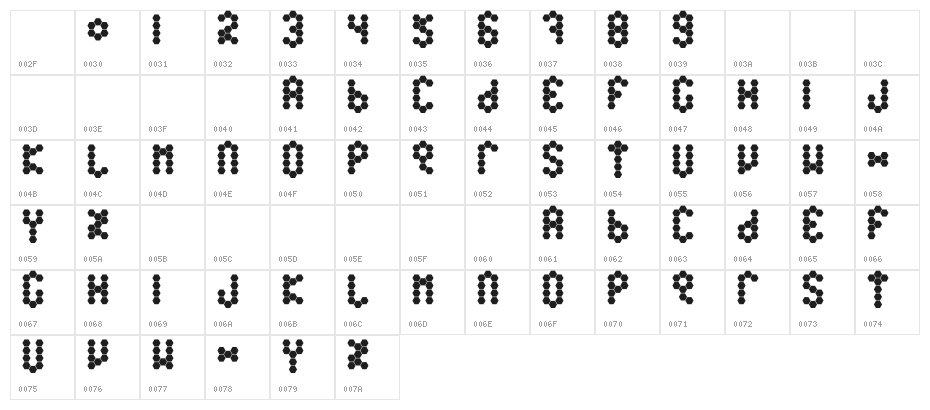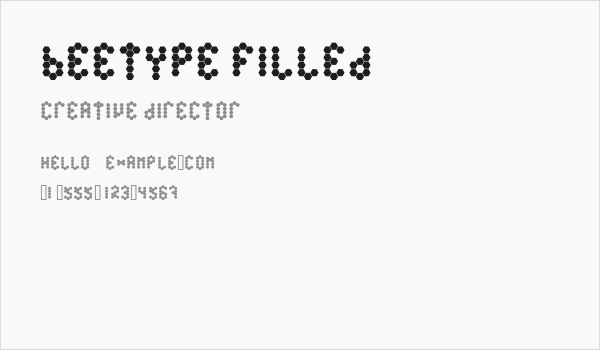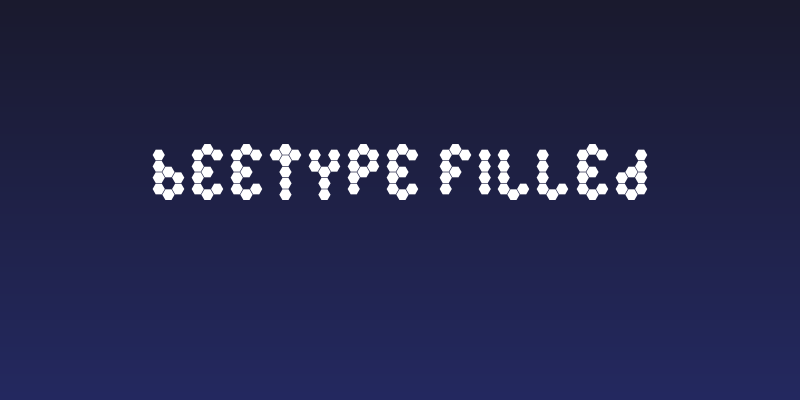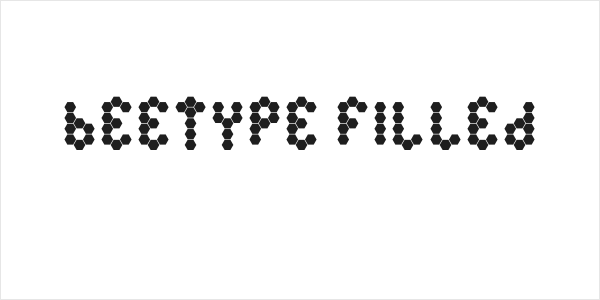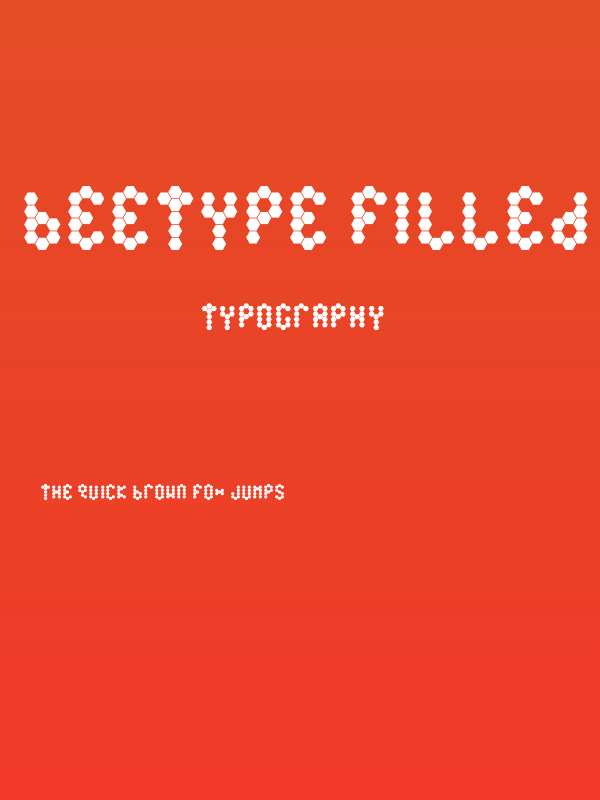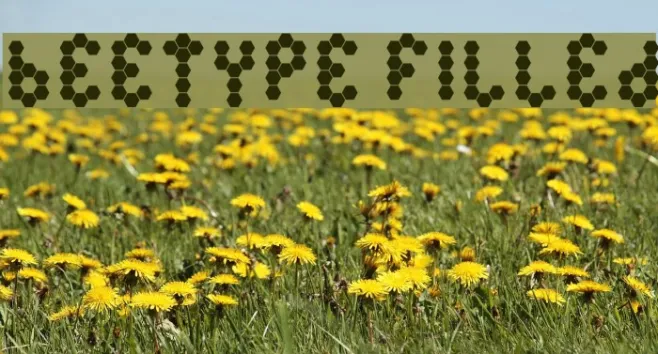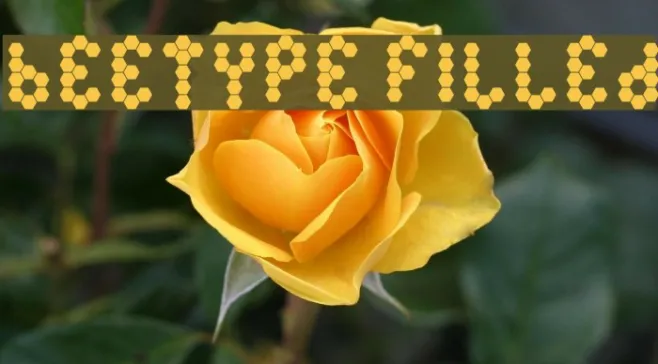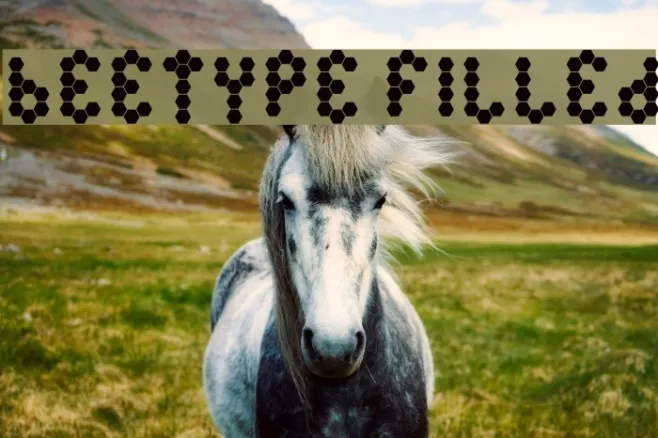
Beetype Filled Font
Beetype Filled Description
This font features a unique design where each character is composed of a series of hexagonal shapes, creating a honeycomb-like appearance. The geometric structure gives it a modern and playful look, while maintaining readability. The characters are evenly spaced, and the consistent use of hexagons across all letters and numbers provides a cohesive visual style. This font stands out due to its distinctive pattern, making it ideal for creative and eye-catching designs.
| Proposed Projects | Ideal for projects that require a bold and creative touch, such as branding for tech companies, children's books, or educational materials. It can also be used for posters, flyers, and digital media that aim to capture attention. |